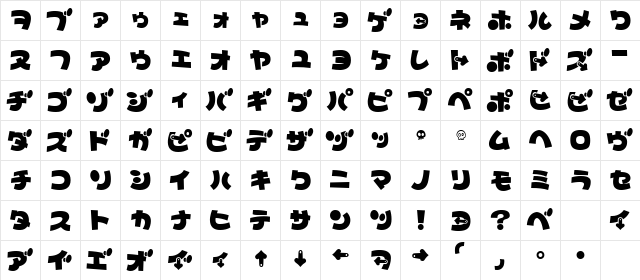
TypoBokan KT
Design Context for TypoBokan Typeface
TypoBokan is a composed and adaptable typeface that performs quietly and consistently across a wide range of design contexts.